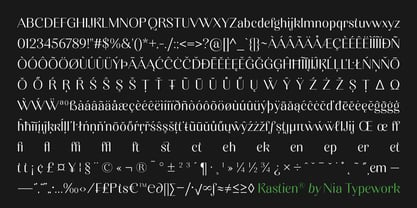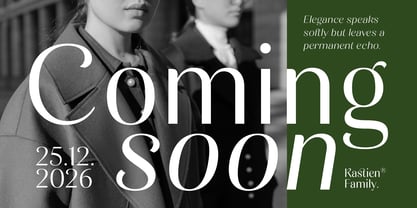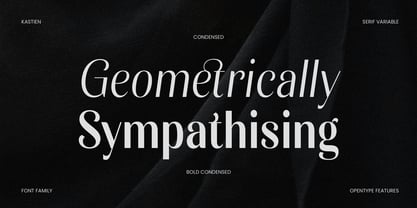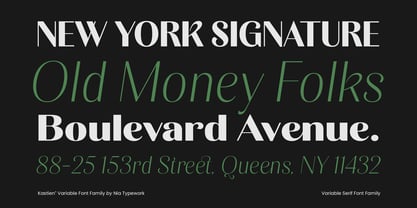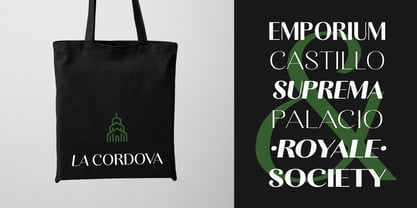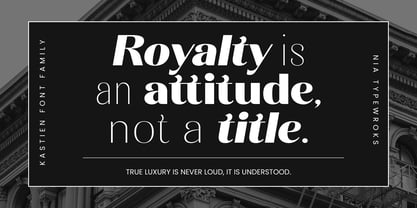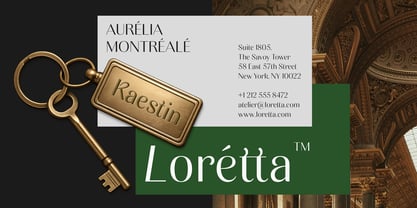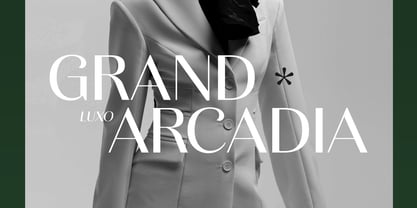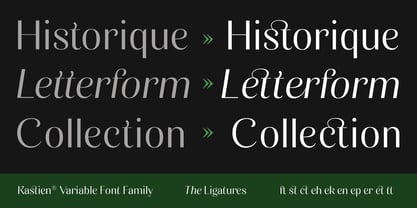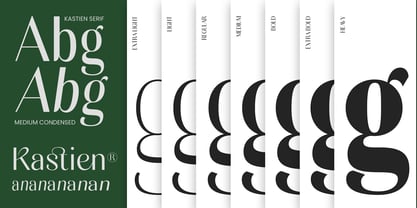
Kastien
by Nia Typework
The Kastien Font Family was designed by Mauli Zari, Nia Octarina and published by Nia Typework. Kastien contains 140 styles and family package options. More about this family
Kastien is a luxury sans serif font family that blends modernity, elegance, and sophistication into one highly flexible type family. Designed with a strong yet refined character, Kastien features subtle contrast and graceful curves with delicate decorative touches, all while maintaining excellent readability. As a variable font, Kastien offers extensive control with multiple weight, width and slant options, allowing designers to fine-tune the look from sleek and refined styles to bold, statement-making expressions. Its balanced proportions and clean sans serif structure are elevated by soft terminals and precisely crafted curves, creating a distinct sense of modern luxury. Kastien also comes with broad language support, including an extensive Latin Extended character set for international design needs. Perfect for premium branding, fashion editorials, exclusive packaging, logos, and contemporary visual identities, Kastien delivers a harmonious blend of modern aesthetics and timeless luxury within a versatile typographic system.